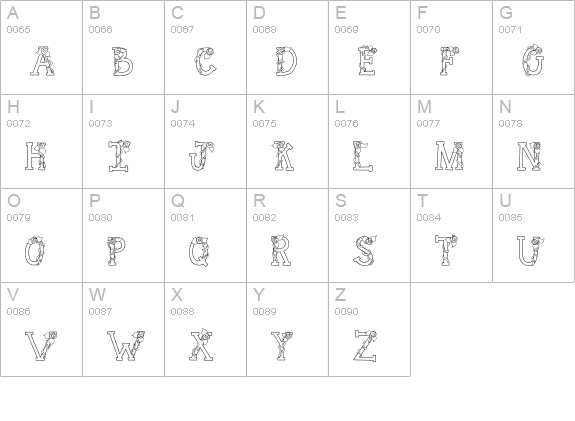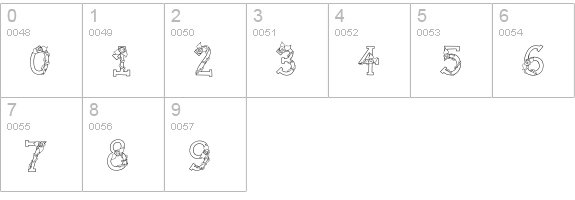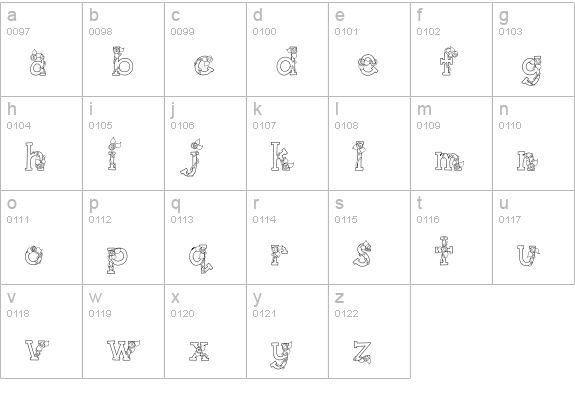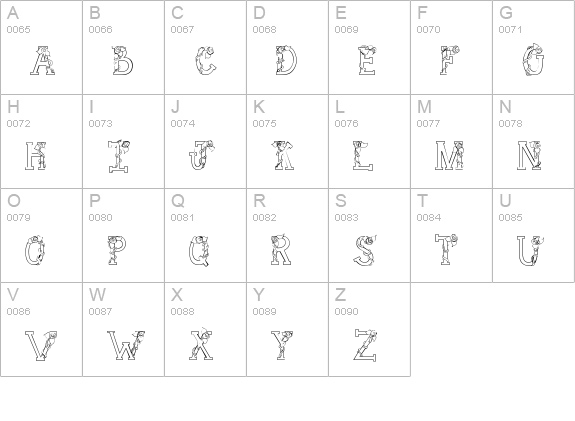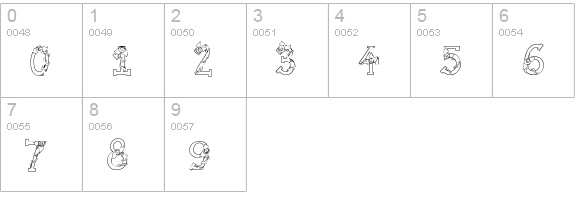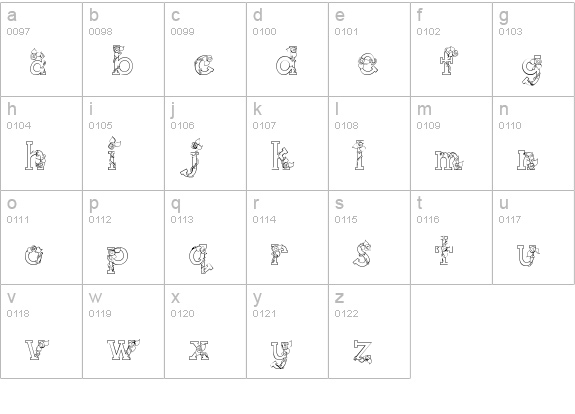
CK Wedding Rose Font Details
Introducing CK Wedding Rose font, a delicate and elegant typeface perfect for wedding invitations, love letters, and romantic designs. This beautiful font features intricate floral details that add a touch of sophistication to any project. CK Wedding Rose font is a timeless choice for those seeking to convey love and romance through their typography. The best part? CK Wedding Rose font is completely free to download at FontsMarket.com! This stunning typeface can be yours with just a few clicks, making it easy to add a touch of charm to your designs without breaking the bank. Don't miss out on this opportunity to elevate your projects with the timeless beauty of CK Wedding Rose font. Download it for free today and let your creativity blossom!